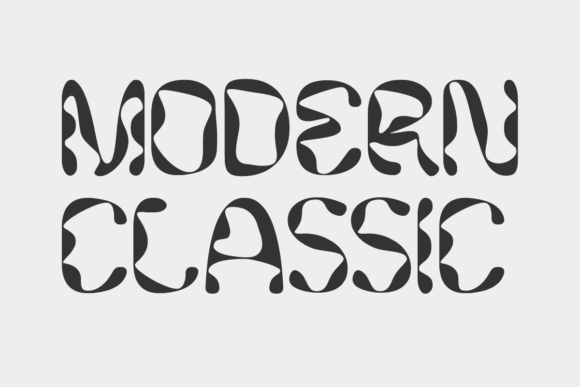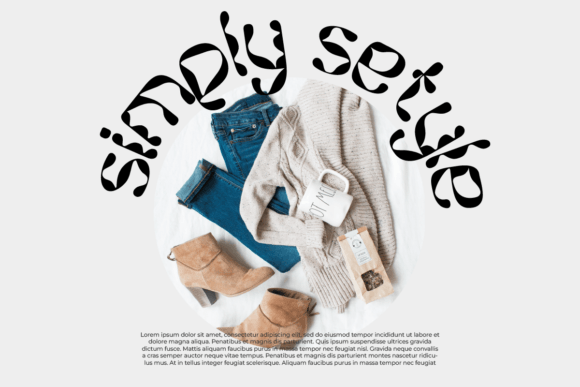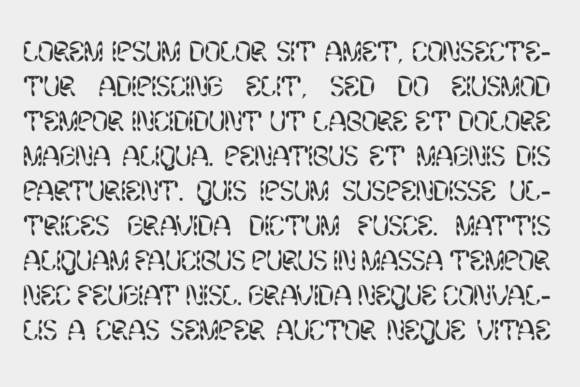
Introduction to Panelyn Font Font
Fonts play a crucial role in design, and the Panelyn Font font is a typeface that brings both character and versatility to any project. Whether you’re working on a branding project, a website, or a print design, the Panelyn Font font offers a unique style that can elevate your work.
Panelyn is a modern display font with a classic touch, exuding elegance and exclusivity, making it perfect for creating captivating fashion brand identities.
Crafted with a harmonious blend of contemporary and traditional elements, this font offers clean lines while maintaining grace, adding a touch of luxury to logos, branding, or fashion product designs Each letter is meticulously designed to create a unique and professional impression.
Key Features of Panelyn Font Font
Why Choose Panelyn Font Font?
The Panelyn Font font is more than just a typeface – it’s a design tool that helps you communicate your message with style and clarity. Its unique character set and versatile design make it suitable for a wide range of applications, from elegant invitations to bold headlines.
With its carefully crafted letterforms and balanced proportions, the Panelyn Font font ensures readability and visual appeal across all mediums.
What makes Panelyn Font font special?
The Panelyn Font font stands out with its unique design, exceptional readability, and versatility across various design applications.